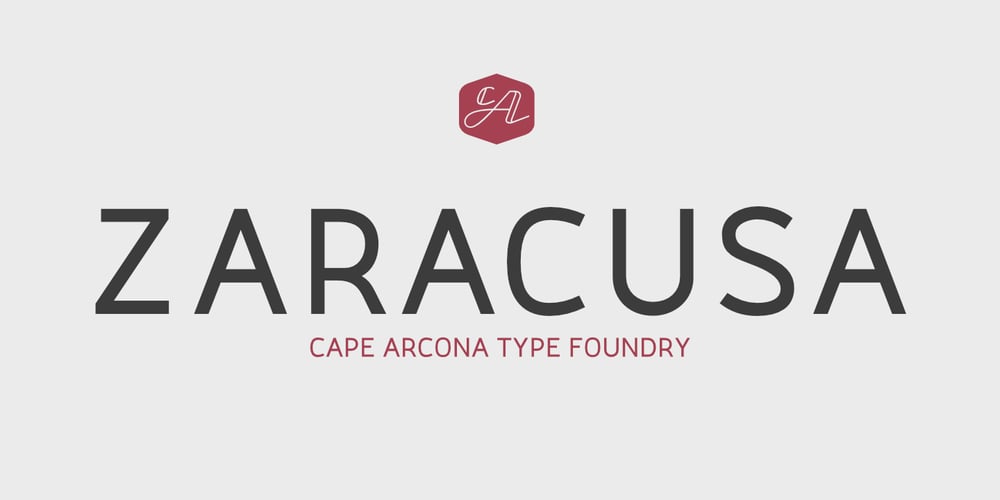
CA Zaracusa Font Family was designed by Stefan Claudius and published by Cape Arcona Type Foundry. CA Zaracusa contains 24 styles and family package options. CA Zaracusa was designed as a CI font for a German Documentary Festival. The aim was to have a font that looks relaxed, clean, unpretentious but not boring, suitable for text and headlines. The ‘Wide Version’ makes nice head- and sublines and works very well in capitals. The ‘Narrow Version’ lets you fill lots of text in small spaces and grants a good legibility. For greater versatility the ‘Alt Versions’ offer alternating numbers.